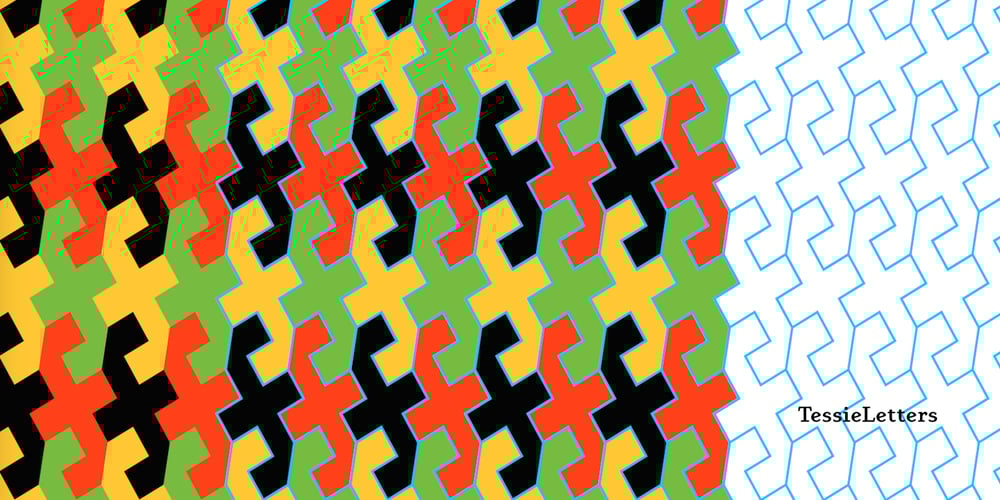
Tessie Letters Font Family was designed by Robert Schenk and published by Ingrimayne Type. Tessie Letters contains 13 styles and family package options. A tessellation is a shape that can be used to completely fill the plane—simple examples are isosceles triangles, squares, and hexagons. Tessellation patterns are eye-catching and visually appealing, which is the reason that they have long been popular in a variety of decorative situations, such as quilting. The TessieLetters fonts contain letter shapes that can be used to construct tessellation patterns. Each family has two styles, an outline style and a filled or black style. The black style can be used to construct colored patterns. To see how patterns can be constructed, see the files here for TessieLettersACE, TessieLettersFQ, TessieLettersGJKMN, TessieLettersLL, TessieLettersTT, TessieLettersOSZ, and TessieLettersSingles. Many or these patterns were discovered/created by the font designer during the past twenty years in the process of designing maze books, coloring books, and a book about tessellations. The TessieLetters are picture or dingbat fonts. For fonts of tessellating letter shapes that can be used for text, see the Tescellations family.